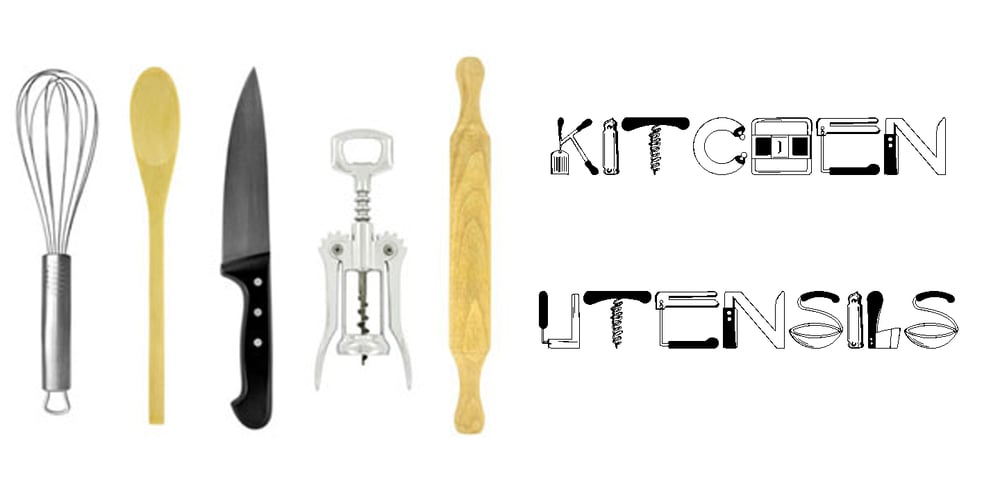
Kitchen Utensils Font Family was designed by Jose Jimenez and published by Celebrity Fontz. Kitchen Utensils contains 1 styles and family package options. Kitchen Utensils is a pictorial font with 36 different common kitchen tools and appliances in the shape of the letters of the alphabet and numbers. Perfect for cooking and kitchen-related texts, recipes, and culinary publications.